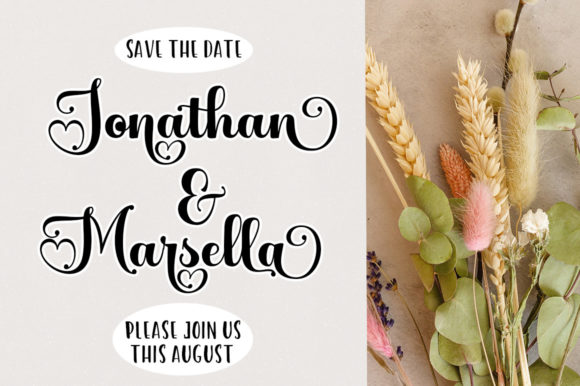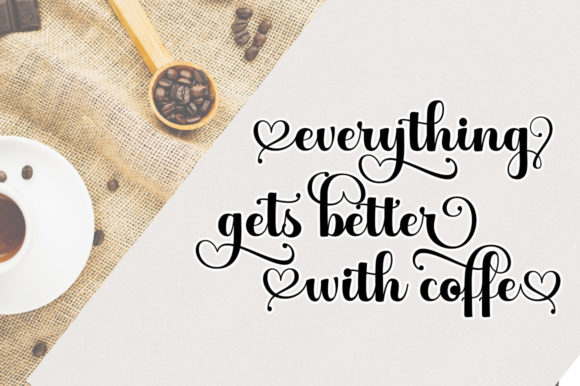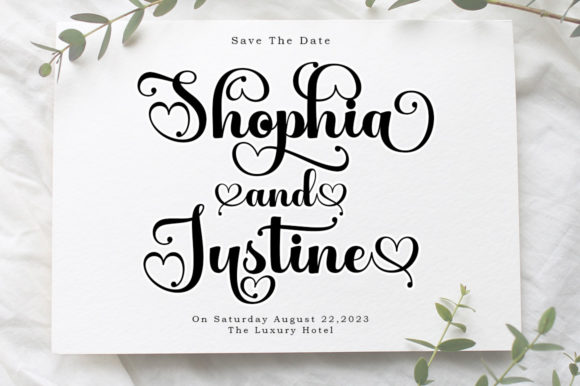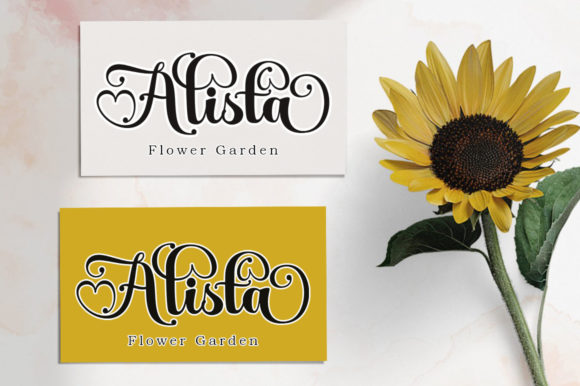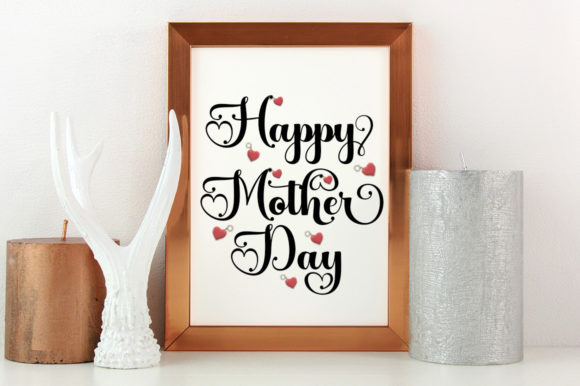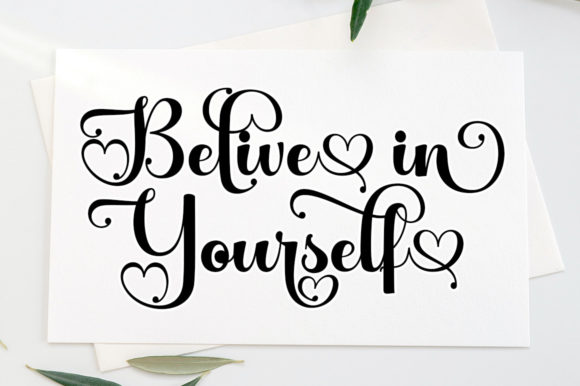
Introducing Alista Script Font: Elevate Your Designs with Elegance and Sophistication
In the world of typography, script fonts hold a special place for adding a touch of elegance and personal charm to any design. Among the myriad of script fonts available, Alista Script stands out for its stylish and delicate appearance, making it an ideal choice for designers and crafters looking to infuse their projects with a handwritten touch. Whether you’re working on wedding invitations, thank you cards, quotes, greeting cards, logos, or business cards, Alista Script font is your go-to solution for creating visually stunning and memorable designs.
The Beauty of Alista Script Font
Alista Script is more than just a font; it’s a design element that can transform your projects with its unique and sophisticated look. Its delicate strokes and elegant swashes bring a level of refinement that’s hard to achieve with standard fonts. This makes it particularly well-suited for:
• Wedding Invitations: Add a touch of romance and sophistication to your wedding invitations, setting the tone for a memorable event.
• Thank You Cards: Express gratitude with style, making your thank you cards stand out.
• Quotes and Greeting Cards: Bring inspiration and warmth to your quotes and greeting cards, making them more impactful.
• Logos and Business Cards: Elevate your brand’s image with a professional yet personal touch.
One of the standout features of Alista Script font is its PUA (Private Use Area) encoding. This means that the font comes with a range of glyphs and swashes that can be easily accessed and used to enhance your designs. PUA encoding allows designers to:
• Access Alternate Characters: Switch between different versions of letters and numbers to add variety to your text.
• Use Swashes: Add decorative elements to your text, making it more dynamic and engaging.
• Customize Your Designs: With a wide range of glyphs at your disposal, you’re free to experiment and create unique designs that reflect your style.
Why Choose Alista Script Font?
With so many script fonts available, why should Alista Script be your top choice? Here are a few compelling reasons:
• Versatility: Whether you’re designing for print or digital platforms, Alista Script adapts beautifully, ensuring your designs look great everywhere.
• Ease of Use: Thanks to its PUA encoding, you can easily access and use the font’s features without needing complex design software.
• Unique Style: Stand out from the crowd with a font that offers a distinctive look, perfect for designers and crafters looking for something special.
Tips for Using Alista Script Font
To get the most out of Alista Script font, consider the following tips:
• Pair with Complementary Fonts: Use Alista Script as a headline font and pair it with a simpler font for body text to create visual hierarchy.
• Experiment with Swashes: Don’t be afraid to try out different swashes and glyphs to add personality to your designs.
• Adjust Font Size and Color: Play with different sizes and colors to emphasize certain words or phrases, making your design more engaging.
Alista Script font is a powerful tool for designers and crafters looking to add a touch of elegance and sophistication to their projects. With its stylish and delicate appearance, PUA encoding for easy access to glyphs and swashes, and versatility across different design applications, it’s an excellent choice for anyone aiming to create memorable and visually stunning designs. Whether you’re working on wedding invitations, logos, or greeting cards, Alista Script font is sure to elevate your designs to the next level.